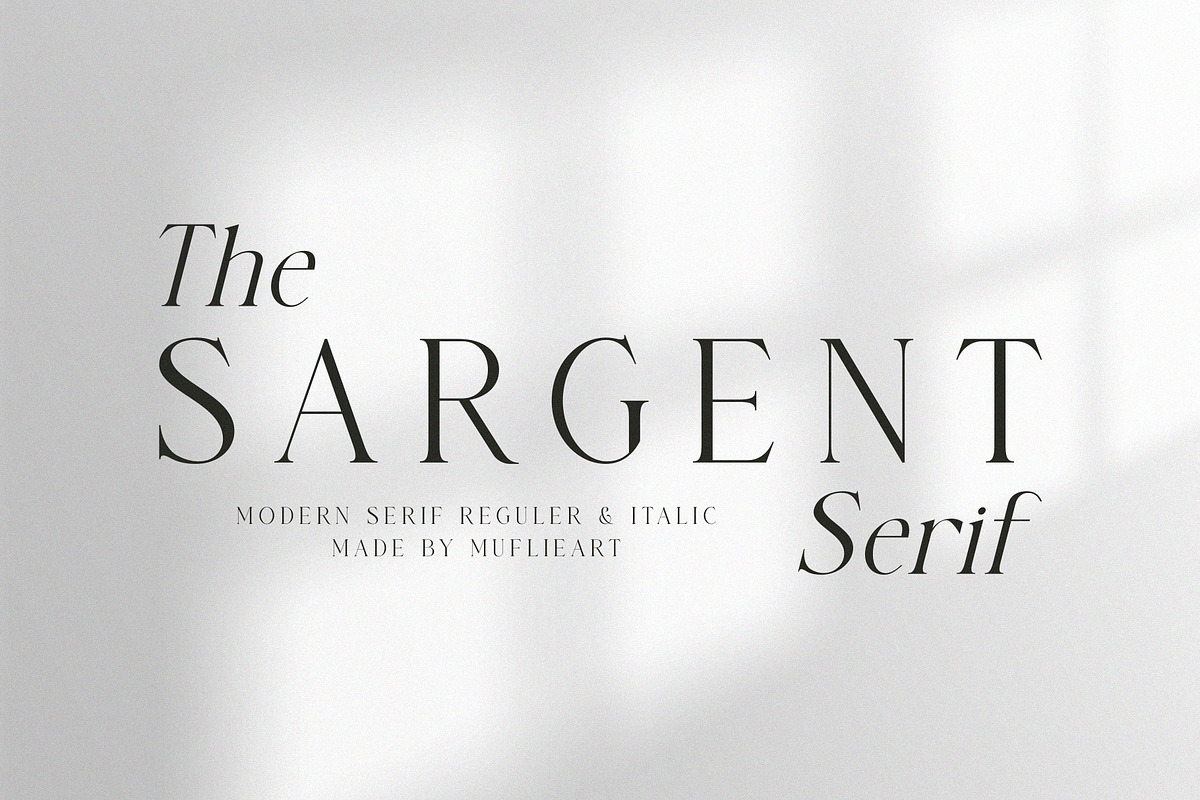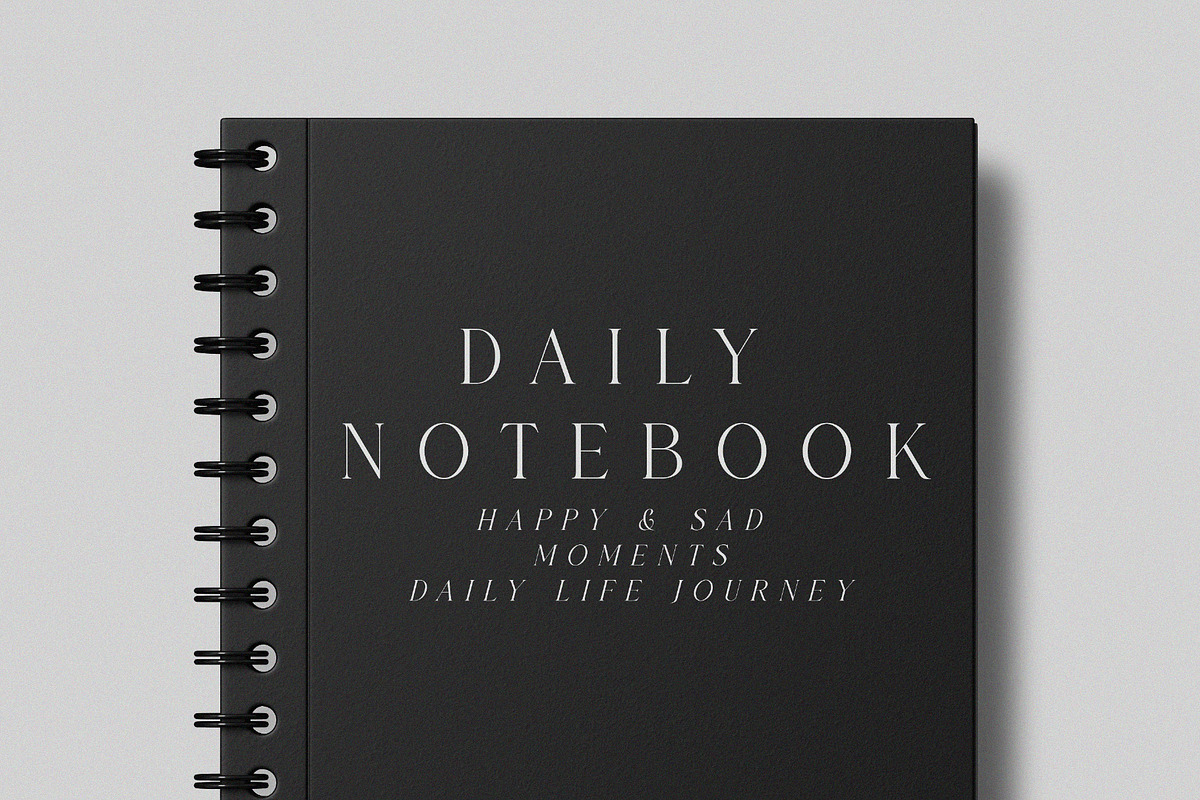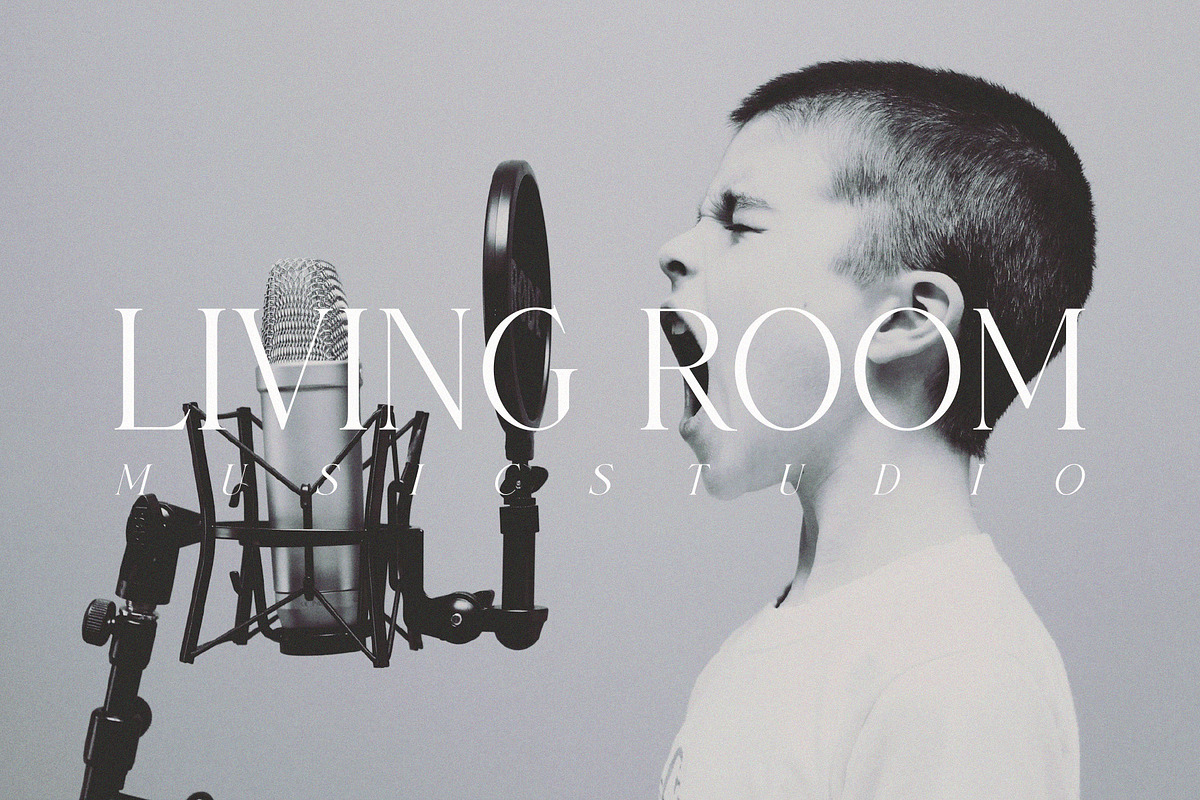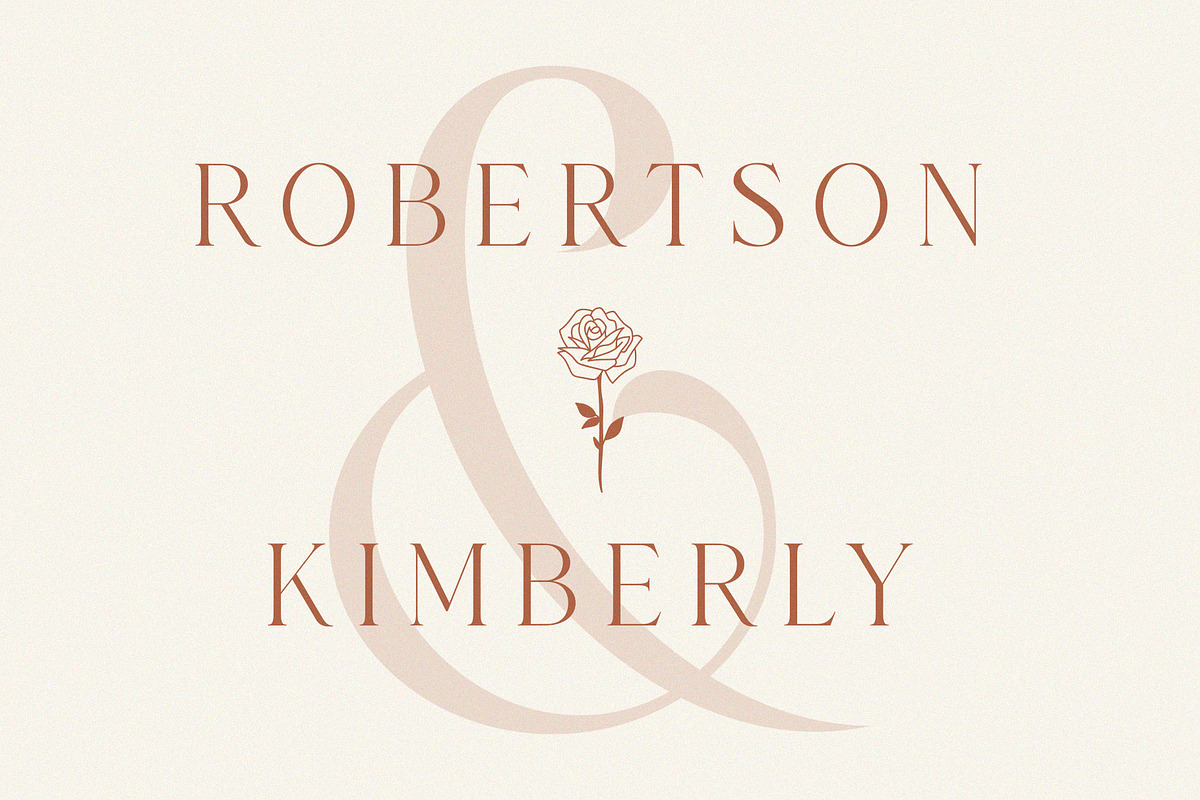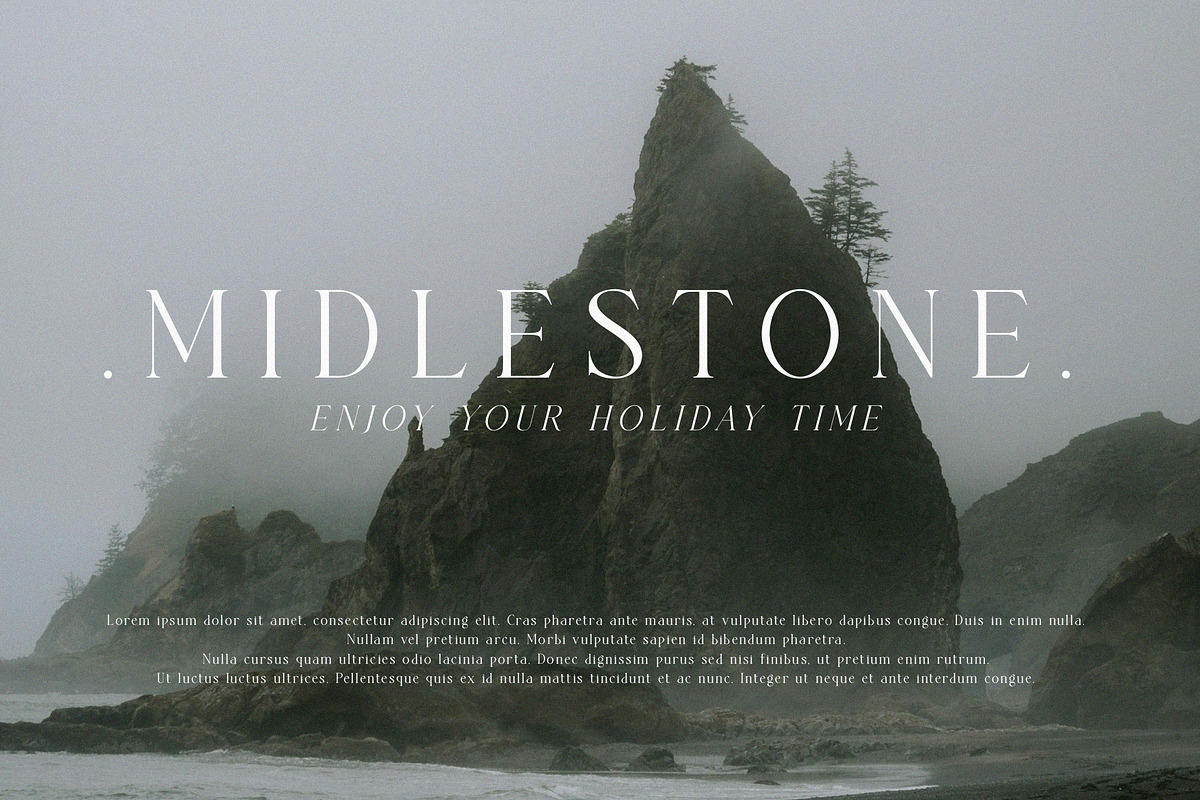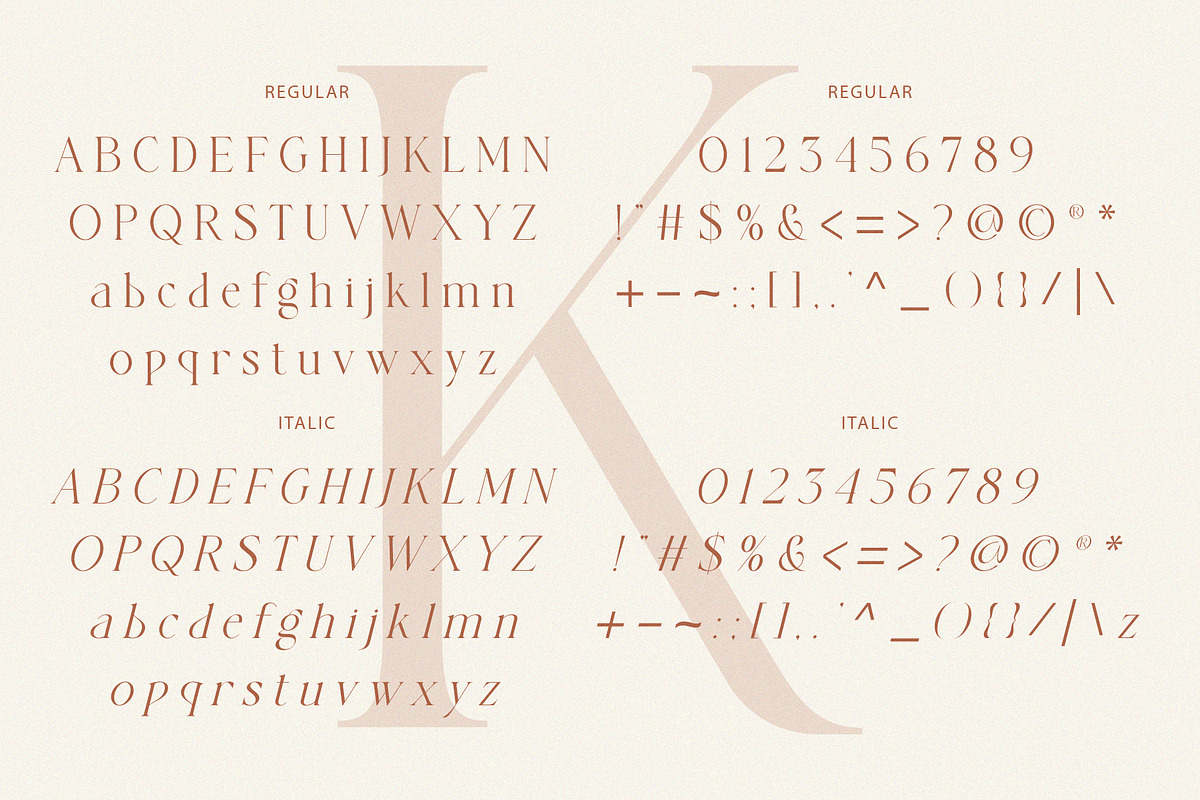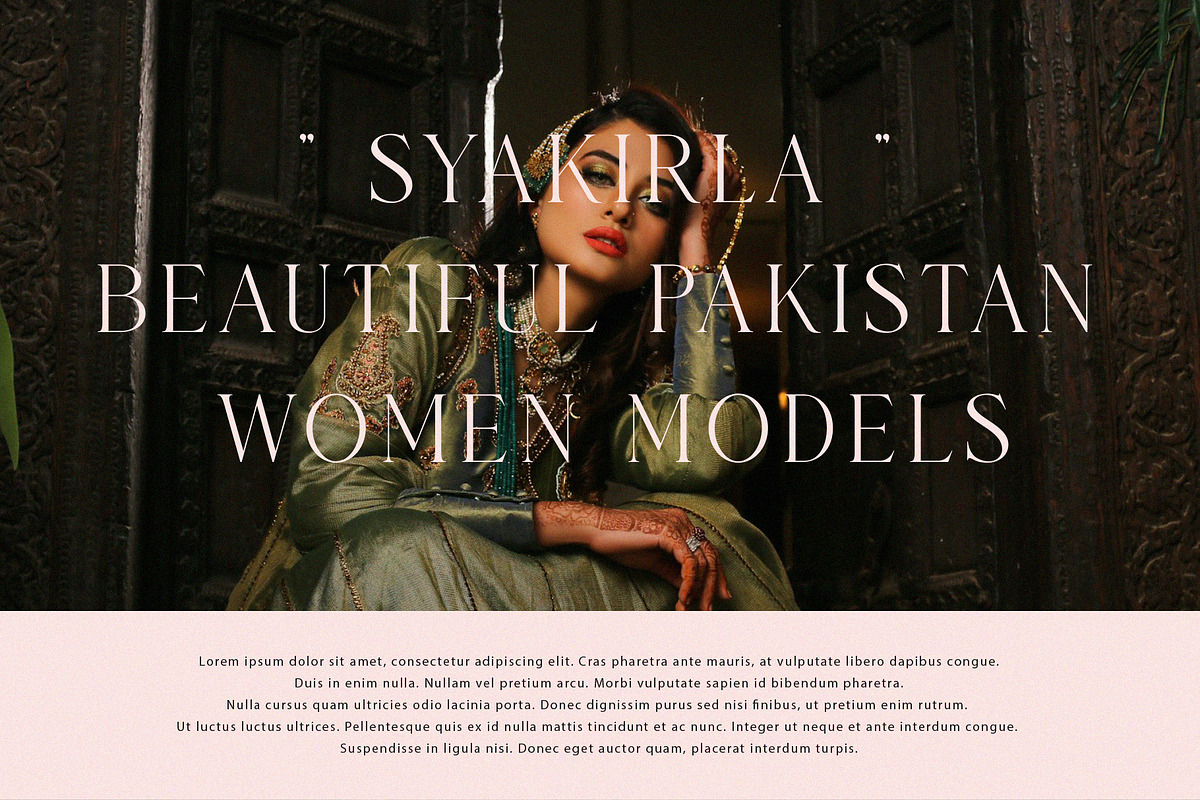
the SARGENT serif
Introducing the SARGENT serif: An elegant and modern serif typeface and is a font family. With its modern and minimalist appearance, the SARGENT serif brings a luxurious and clean style to your projects such as websites, modern logos, branding identities, social media quotes, tools write weddings and various other needs!
the SARGENT serif features unique capital letters A to Z and belongs to the SARGENT serif REGULAR and ITALIC font family, making it a beautiful and unique font that can be adapted to any large project you desire.